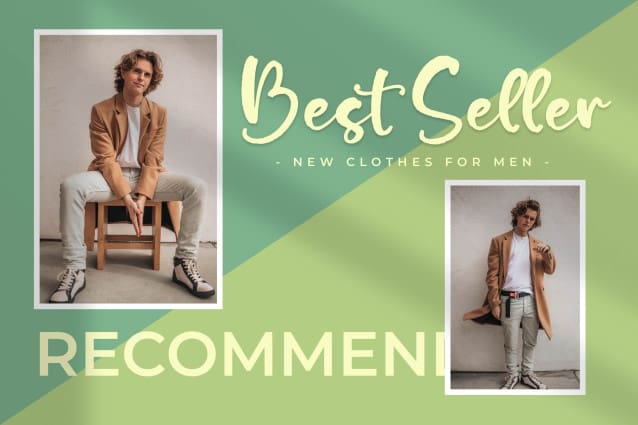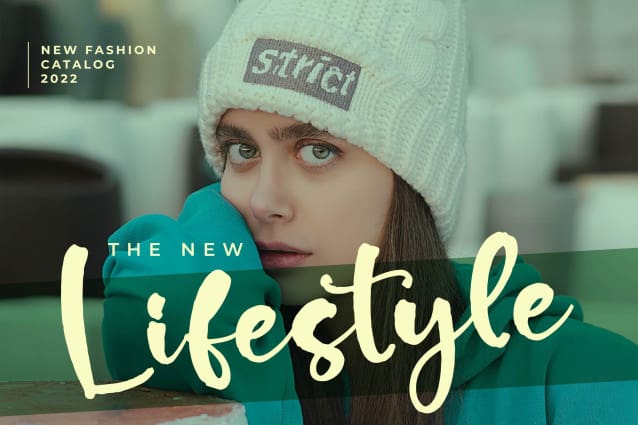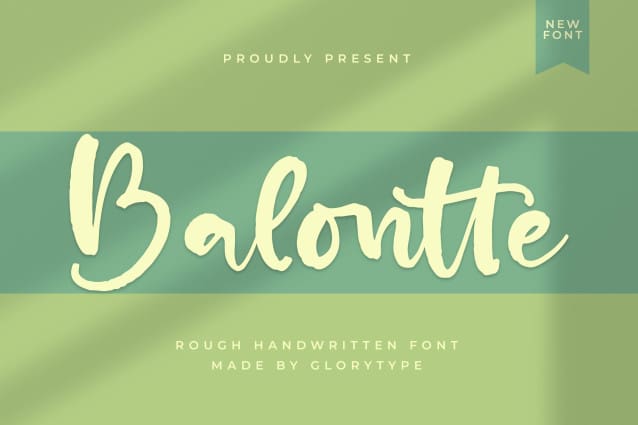
Balontte Script Font
Balontte Script Font – Rough Handwritten Font , from Glorytype Studio, suitable for any projects such as: logos, branding projects, homeware designs, product packaging, mugs, quotes, posters, shopping bags, t-shirts, book covers, name card, invitation cards, greeting cards, label, photography, watermark, special events, and all your other lovely projects that need a beautiful script taste.